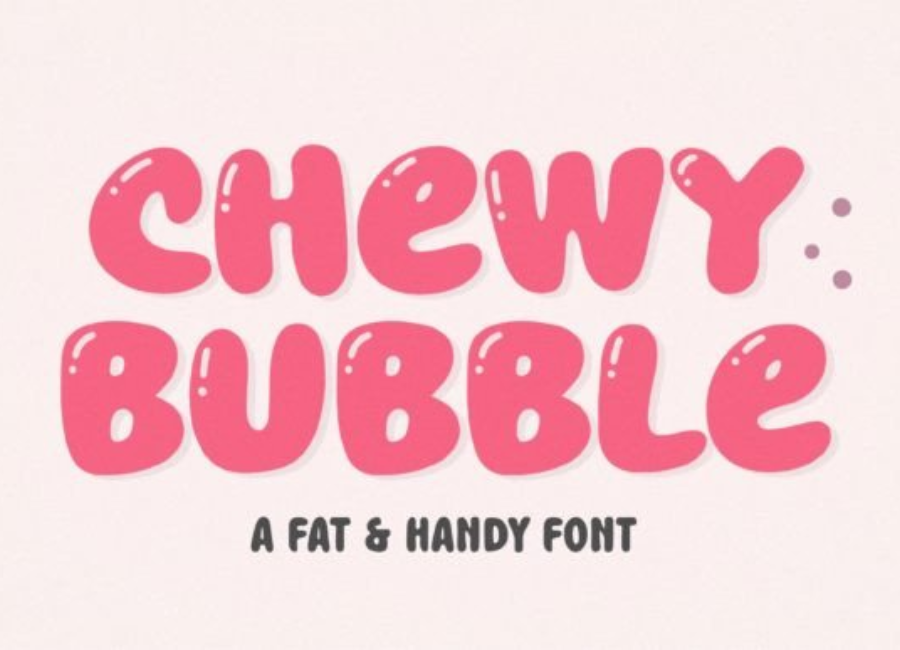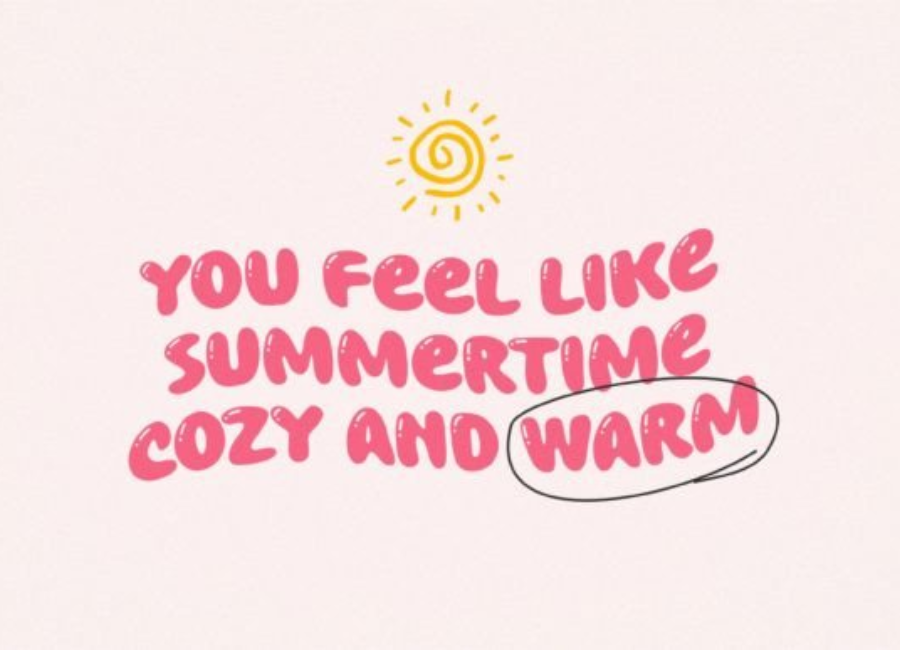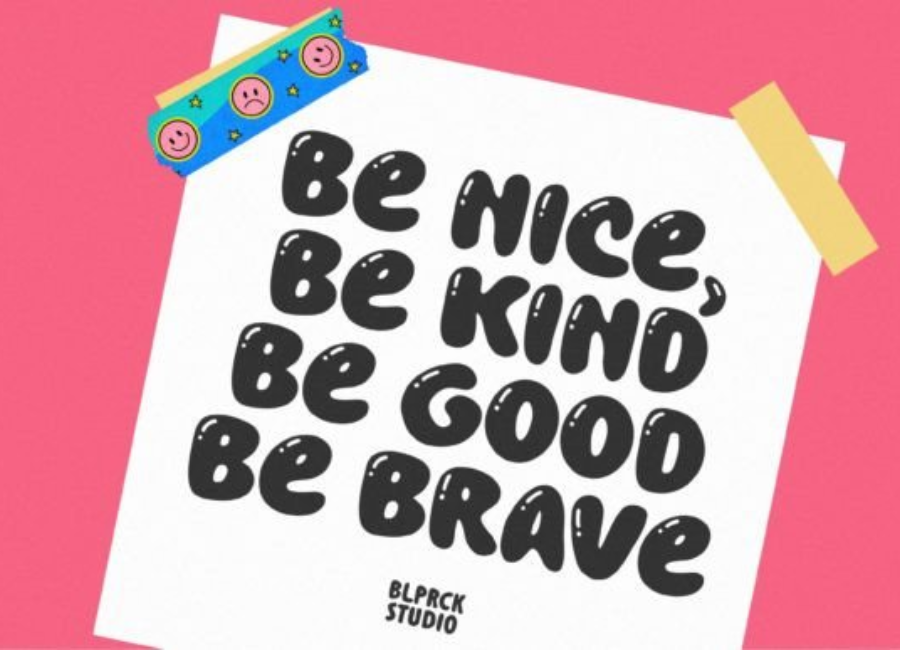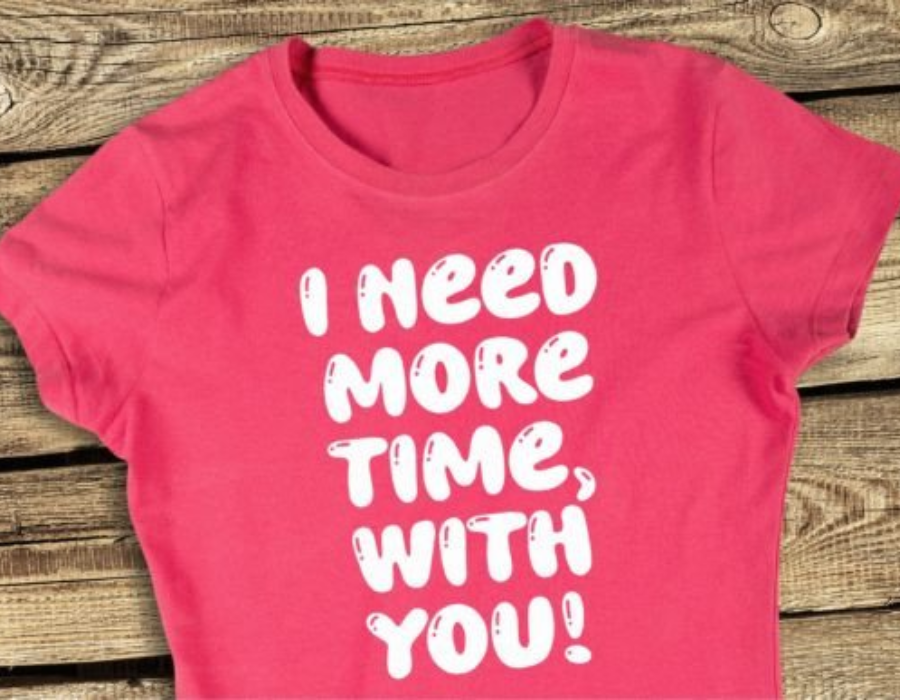
Chewy Bubble Font: Playful Energy with a Sweet Retro Twist
Typography has the power to shape mood, personality, and emotion—and the Chewy Bubble Font captures pure joy through its fun, rounded, and bouncy design. With its soft curves and bold appearance, this font embodies everything lighthearted, making it a perfect choice for projects that need a cheerful and inviting touch.
A Sweet and Playful Design
The Chewy Bubble Font takes inspiration from classic bubble lettering and retro cartoon typography, combining nostalgic charm with a modern creative twist. Each letter looks soft, inflated, and full of personality—almost as if it were made of candy or bubblegum. The thick strokes and curved edges create a sense of movement, making the text appear alive, friendly, and dynamic.